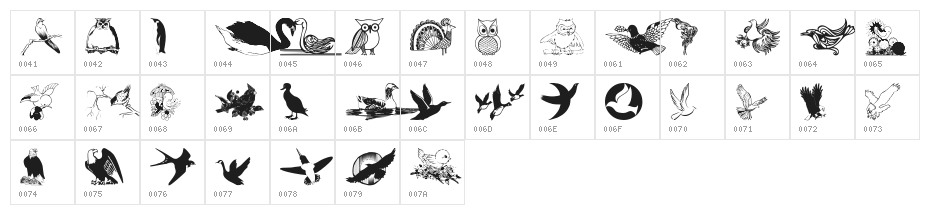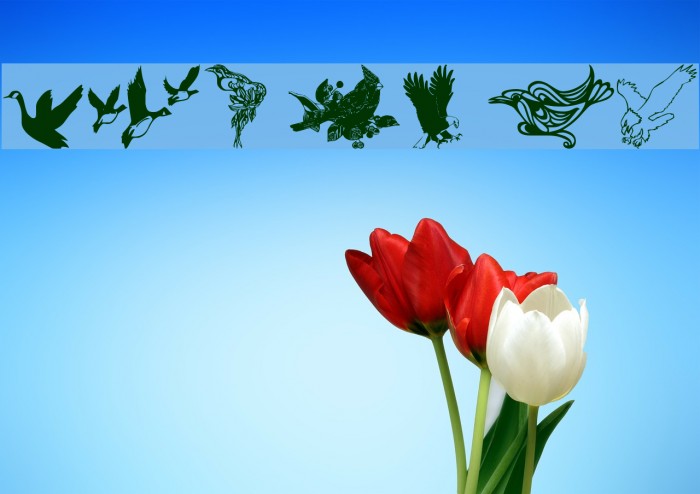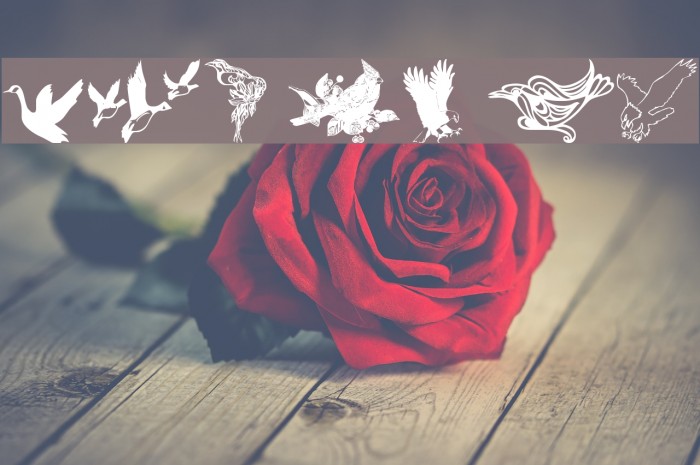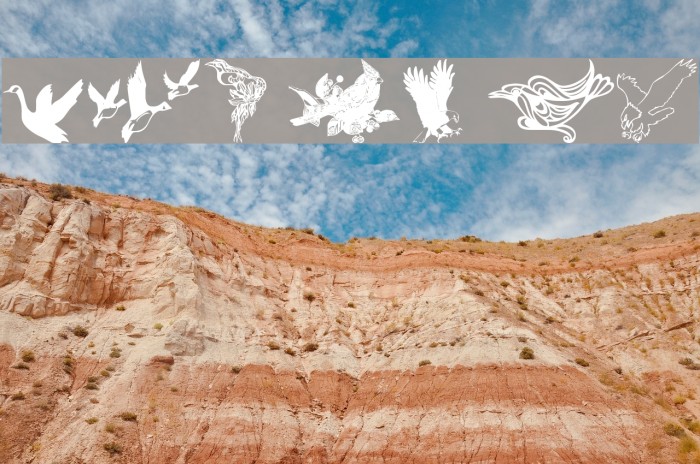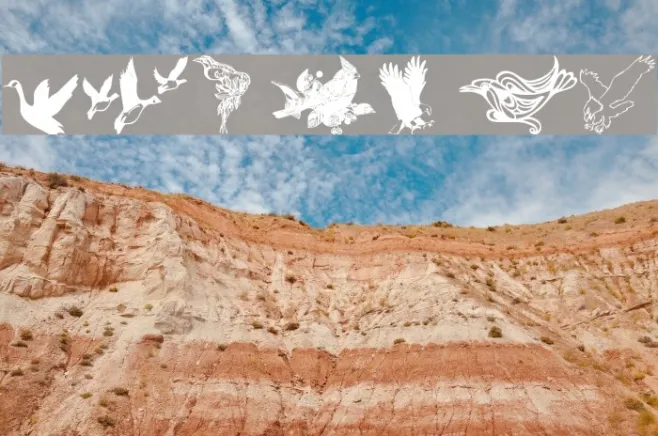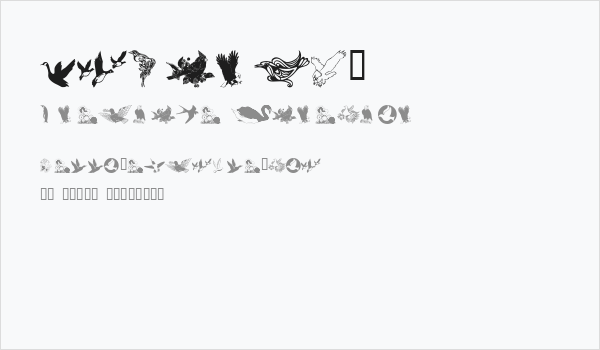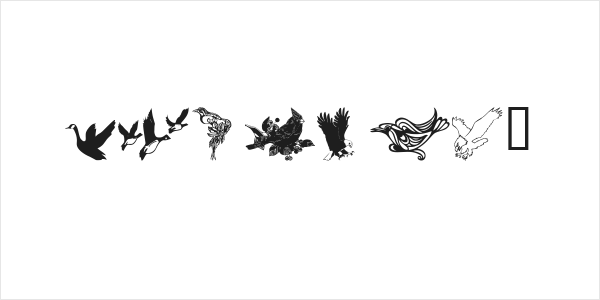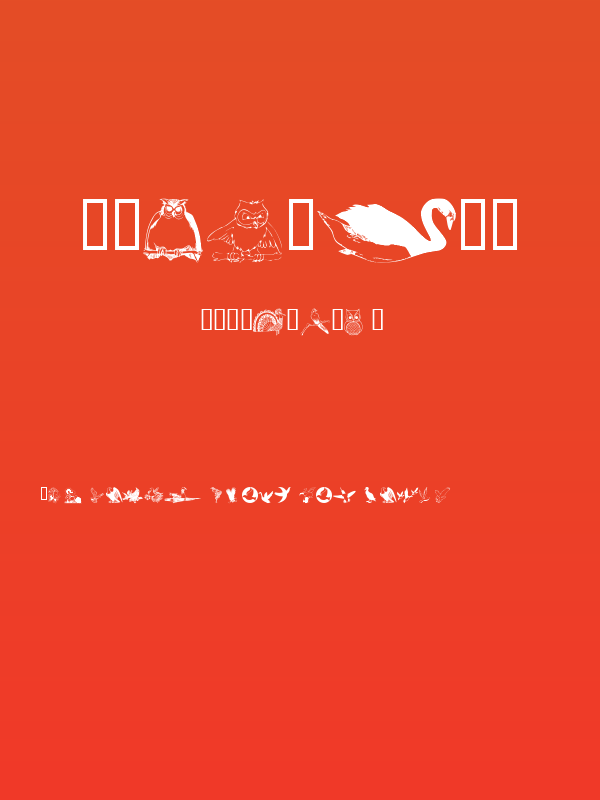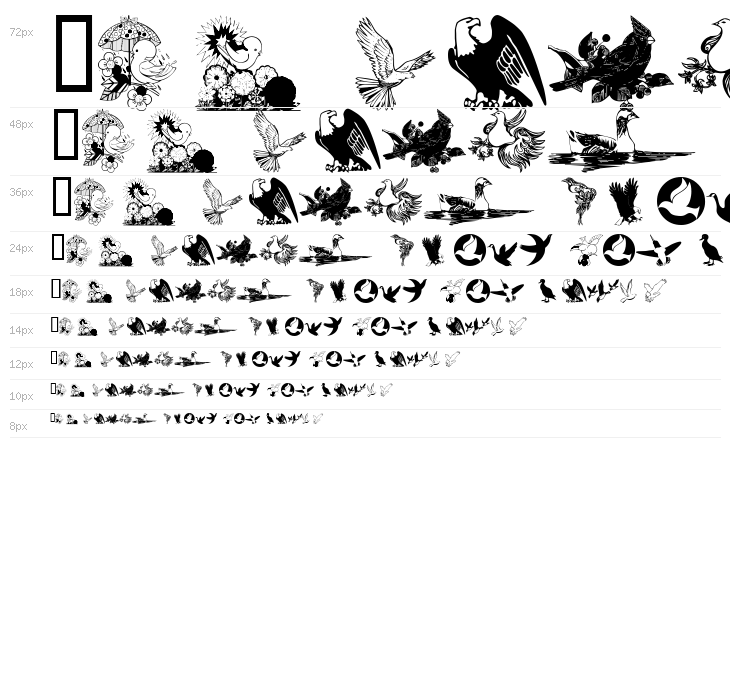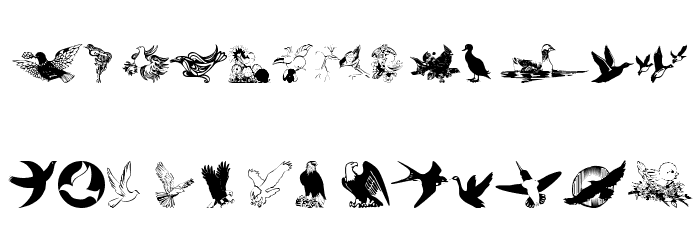
wmbirds1 Font
wmbirds1 Description
A decorative dingbat font featuring a variety of detailed bird illustrations, including owls, swans, ducks, songbirds, and other avian species, each glyph representing a unique bird or bird-related scene.
| Overall Style | Decorative, Nature-inspired |
| Use Case | Illustrative elements, Logos, Decorative accents |
| Proposed Projects | Nature-themed posters, educational materials, children's books, wildlife branding, decorative borders. |